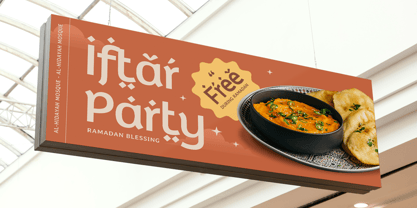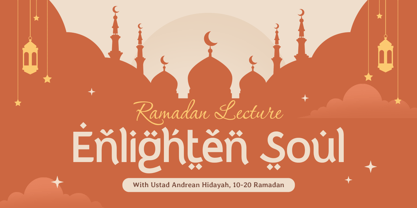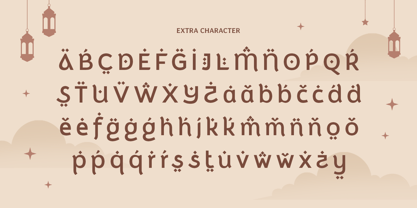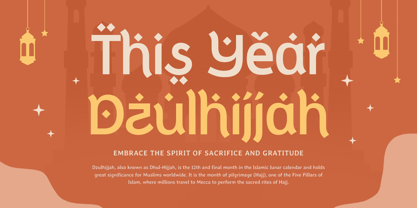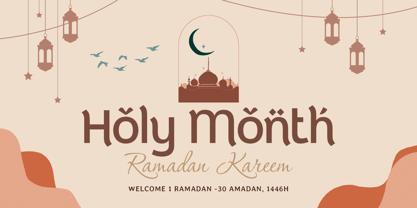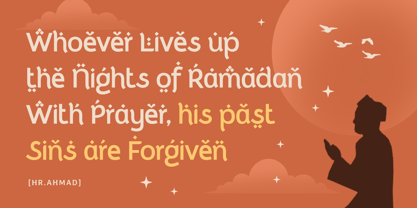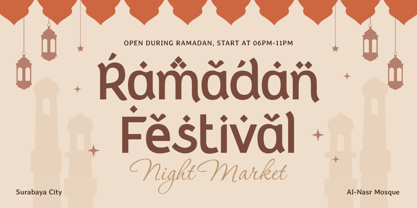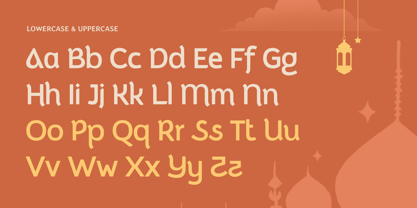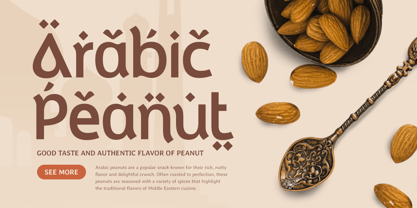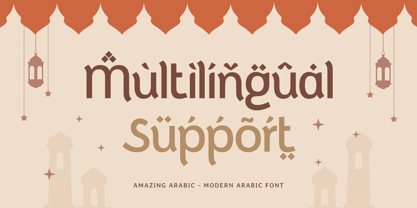
Amazing Arabic
by Sensatype Studio
The Amazing Arabic Font Family was designed by Zamroni Hamzah and published by Sensatype Studio. Amazing Arabic contains 1 styles. More about this family
Amazing Arabic - Modern Arabic Font
Amazing Arabic is a sophisticated Arabic font designed to bring charm and modernity to your creative projects. Ideal for Ramadan greetings, branding, invitations, or banners, this font combines traditional Arabic script with a contemporary touch. Its clean and refined design ensures versatility, making it suitable for both formal and festive occasions.
Inspired by the rich heritage of Arabic calligraphy, Amazing Arabic stands out with its balanced forms and fluid strokes. Whether you're working on digital campaigns, print designs, or social media content, this font offers a polished aesthetic that enhances your message while respecting cultural values.
Transform your projects into timeless pieces with Amazing Arabic. Its modern character exudes elegance and sophistication, making it the perfect choice for designs that demand a blend of beauty and authenticity.
Amazing Arabic Modern Arabic Font Features:
• Elegant and Versatile Arabic Script
• Ideal for Ramadan Greetings, Branding, and Social Media
• Punctuation, Numbers, and Symbols
• Uppercase and Lowercase
• Opentype Features
Multilingual Characters available for:
Afrikaans, Albanian, Asu, Basque, Bemba, Bena, Breton, Chiga, Cornish, Dutch, English, Estonian, Filipino, Finnish, Friulian, Galician, German, Gusii, Indonesian, Irish, Italian, Kabuverdianu, Kalenjin, Kinyarwanda, Luo, Luxembourgish, Luyia, Machame, Makhuwa-Meetto, Makonde, Malagasy, Manx, Morisyen, North Ndebele, Nyankole, Oromo, Portuguese, Quechua, Romansh, Rombo, Rundi, Rwa, Samburu, Sango, Sangu, Scottish Gaelic, Sena, Shambala, Shona, Soga, Somali, Spanish, Swahili, Swedish, Swiss.
Designers: Zamroni Hamzah
Foundry: Sensatype Studio